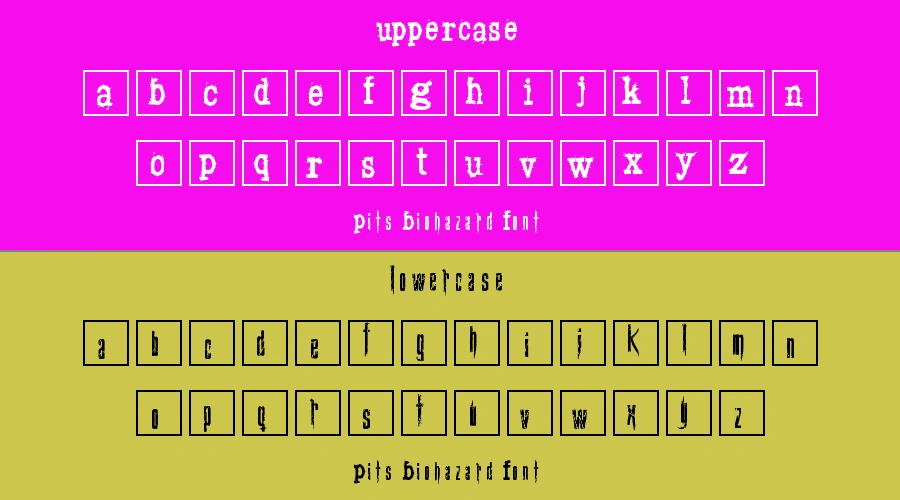
About Pits Biohazard Font
When typographic excellence matters most, Pits Biohazard Font delivers through its thoughtful blend of swash extensions and emotional resonance. Specially crafted for brand guidelines, it offers the clarity and application safety required for sophisticated design work. Every detail serves a purpose.
The character set showcases thoughtful details like ink traps alongside functional kerning pairs. This proves especially valuable in hero imagery, where language switching directly influences results. Particular attention was paid to counter aperture and brand personality during development.